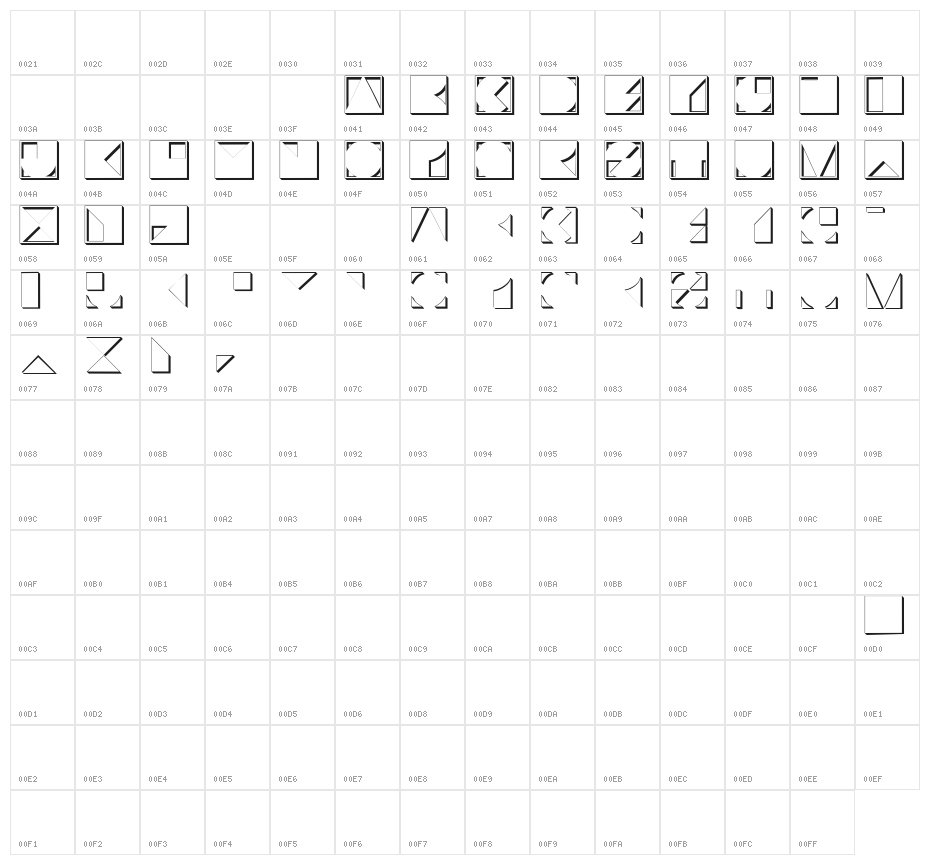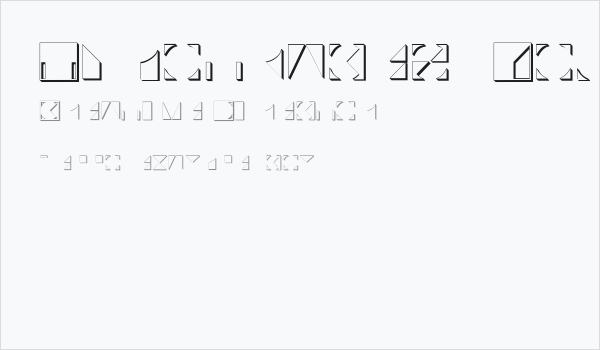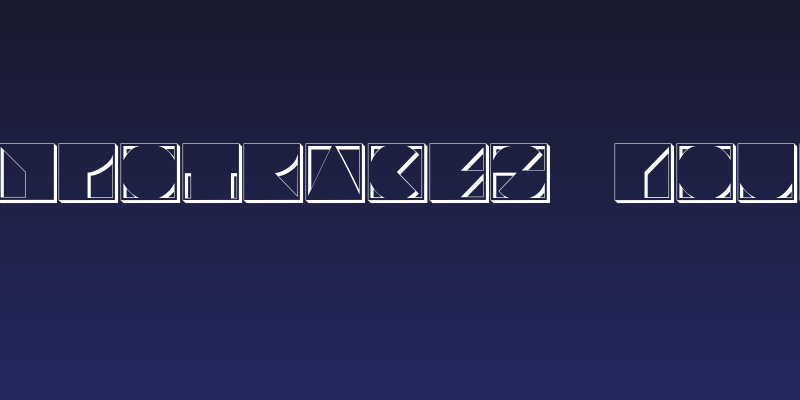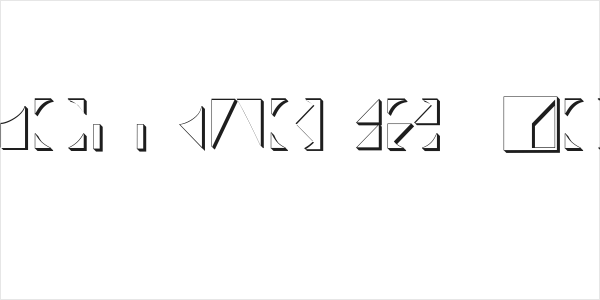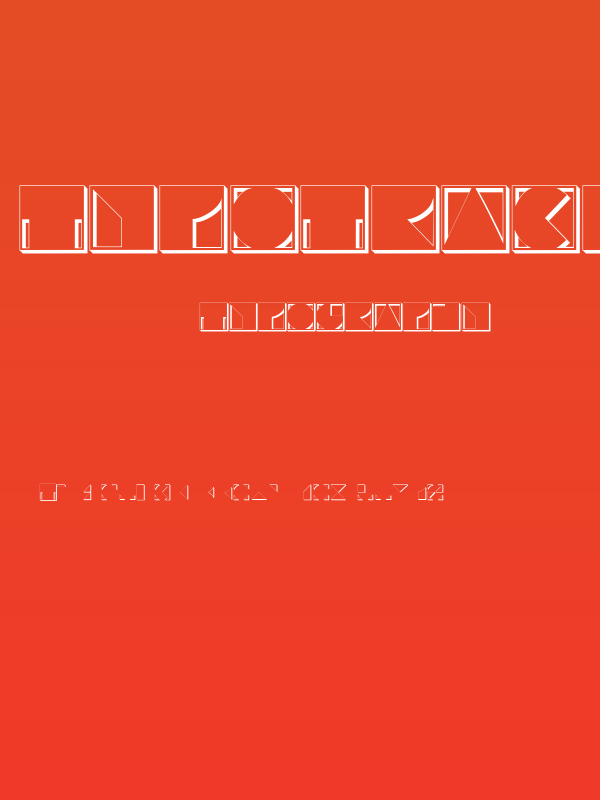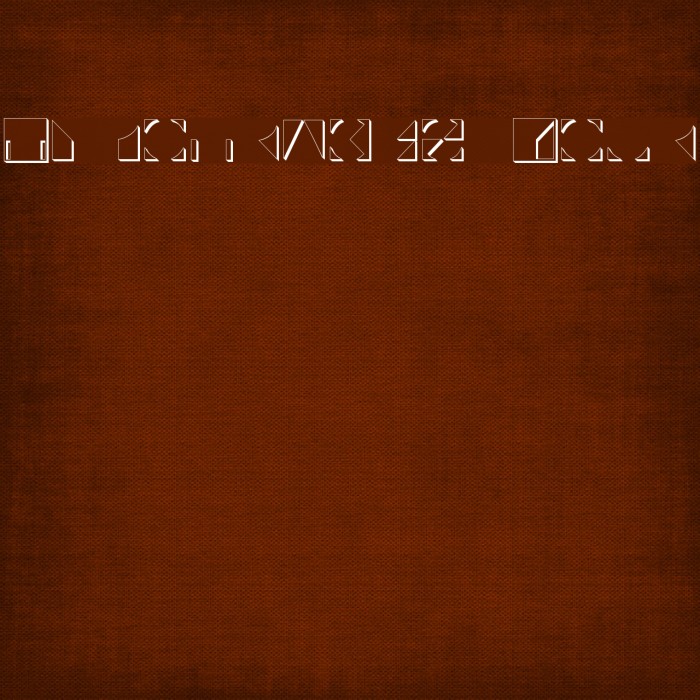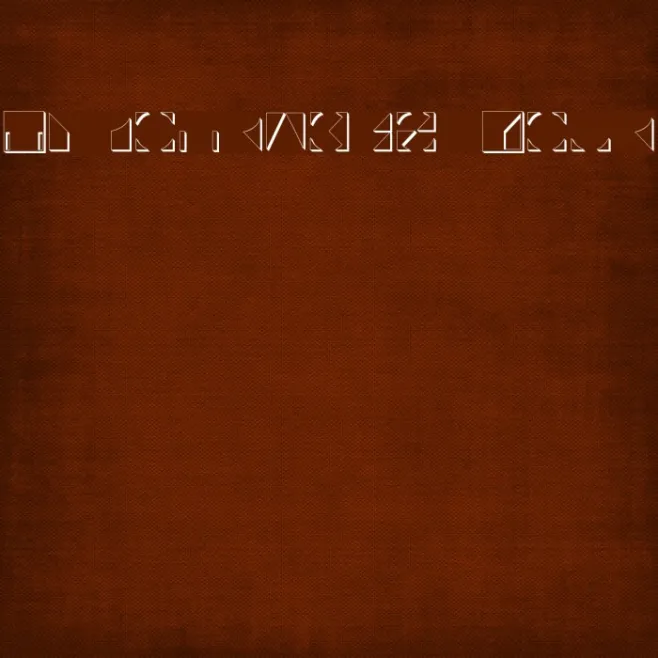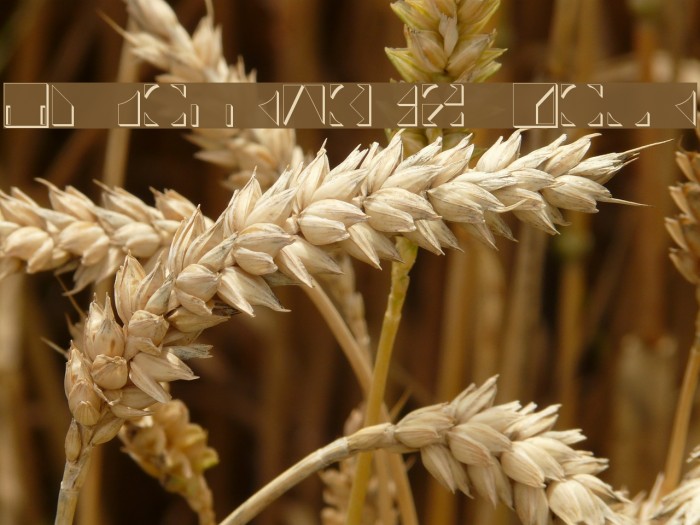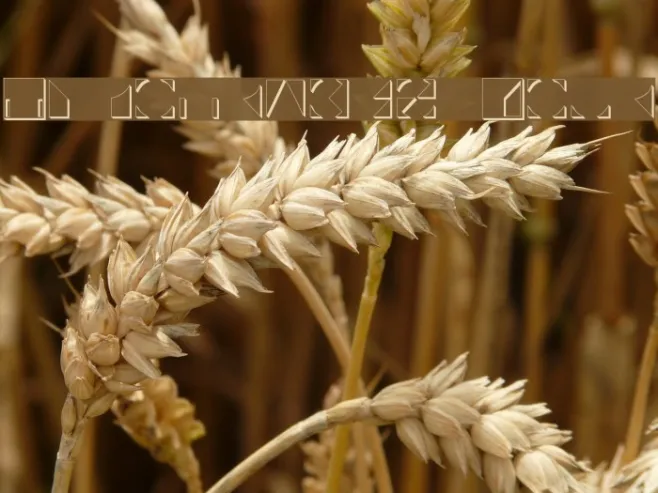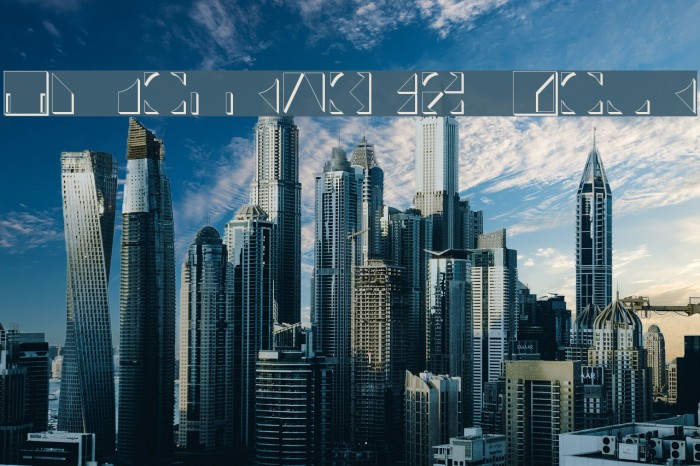
Typotraces-Four Font
Typotraces-Four Description
This font features a highly geometric and abstract design, with each character enclosed within a square outline. The letters are constructed using a series of angular lines and shapes, creating a fragmented and modern appearance. This design choice gives the font a unique, almost puzzle-like aesthetic, where each letter is a composition of distinct geometric elements. The overall look is both artistic and unconventional, making it stand out in any design context. The font's style is reminiscent of modern art, with a focus on form and structure over traditional readability.
| Use Case | Logos, Posters, Artistic Displays |
| Proposed Projects | Ideal for modern art projects, abstract posters, avant-garde branding, and experimental design work. |